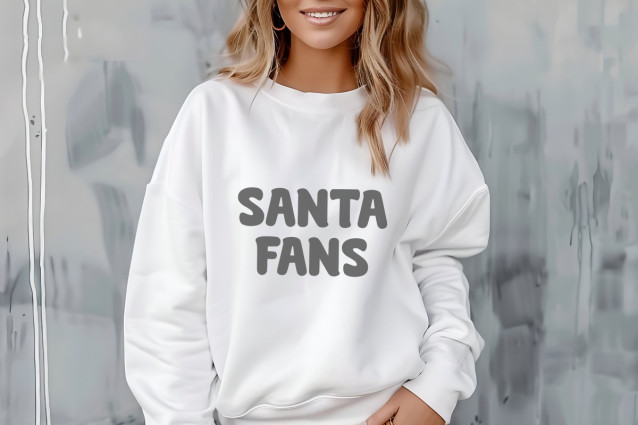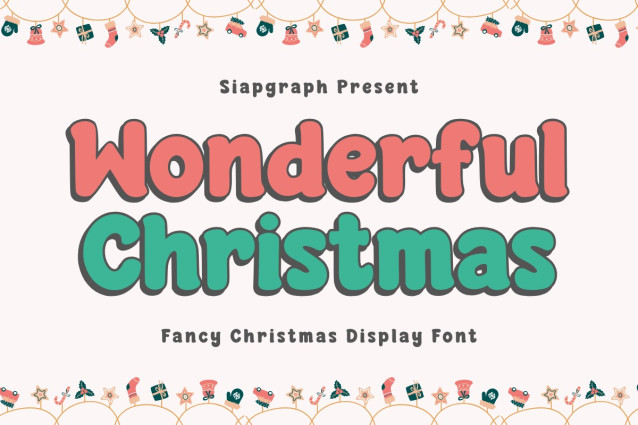
Wonderful Christmas Display Font
Wonderful Christmas Display Font is a fancy retro christmas font that brings a fun, nostalgic vibe to your creative projects. Its thick strokes and playful curves make it perfect for adding a vintage flair to any design.